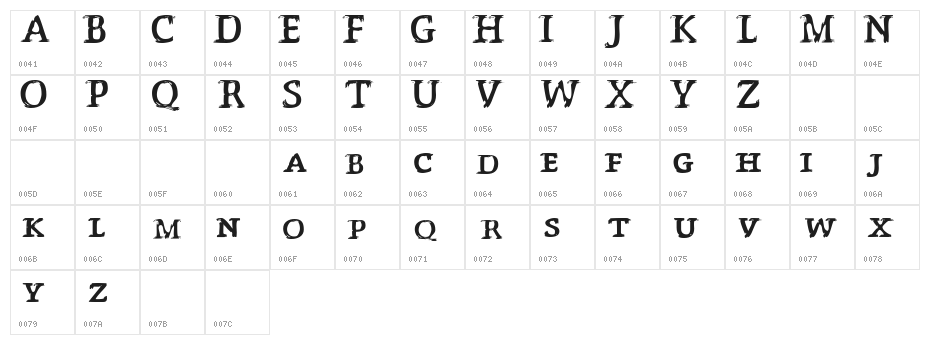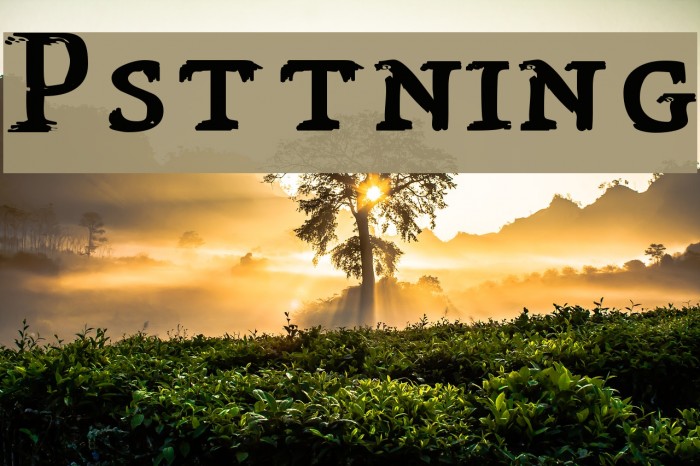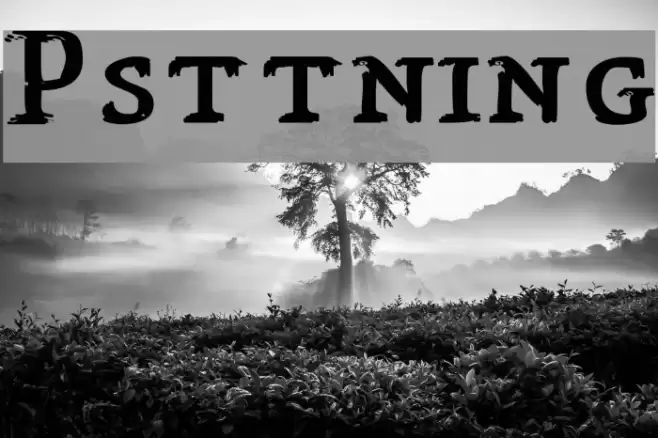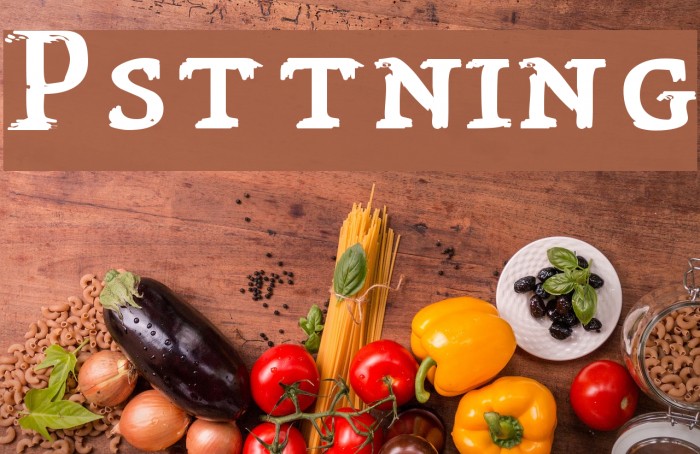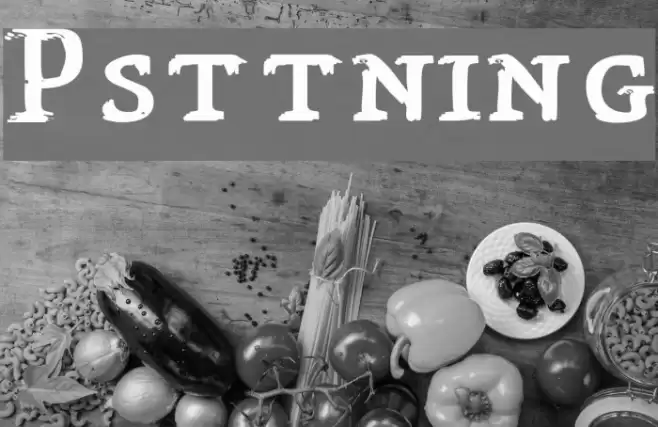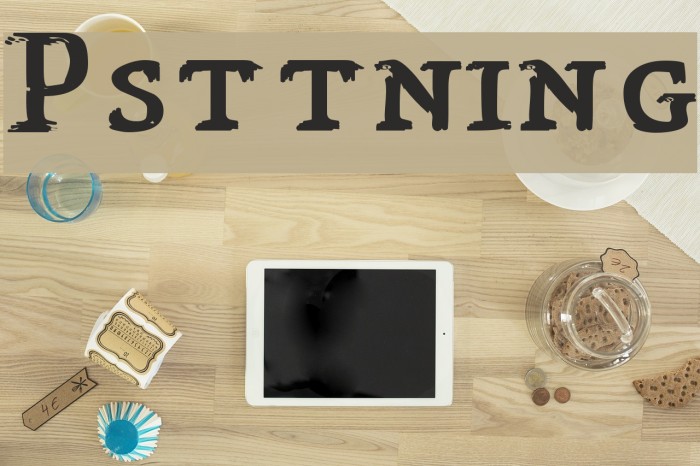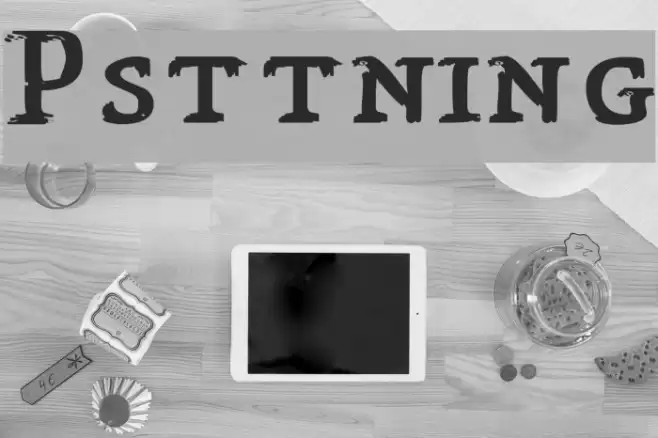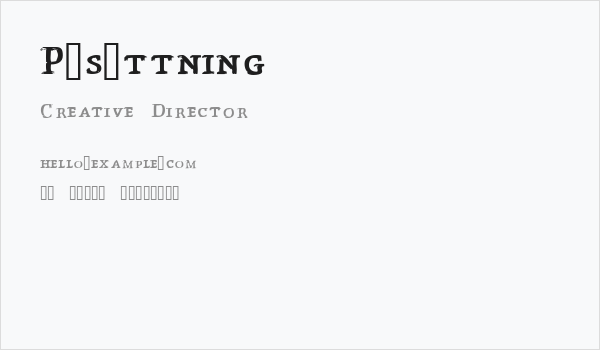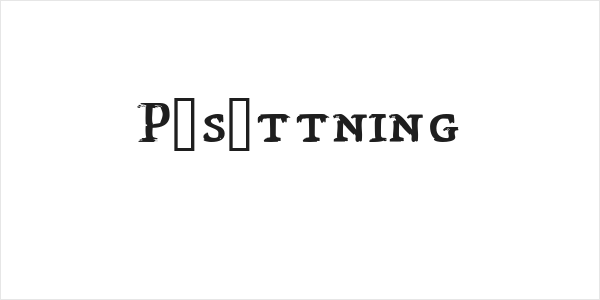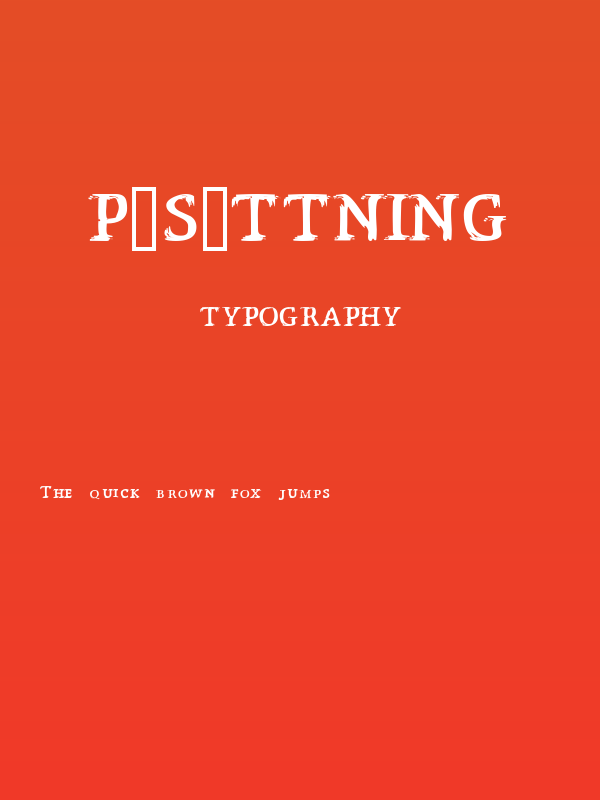
Påsättning Font
Påsättning Description
This font features a bold and distressed style, with rough edges and a textured appearance that gives it a vintage and rugged feel. The uppercase letters are prominent and commanding, while the lowercase letters maintain the same distressed characteristics, adding to the overall cohesive look. The numerals and special characters follow the same design, ensuring consistency across all elements. This font is ideal for projects that require a strong, impactful presence, such as posters, headlines, and branding materials. Its unique style makes it stand out, providing a distinctive look that captures attention.
| Proposed Projects | Ideal for posters, headlines, branding materials, and any project needing a strong, impactful presence. |